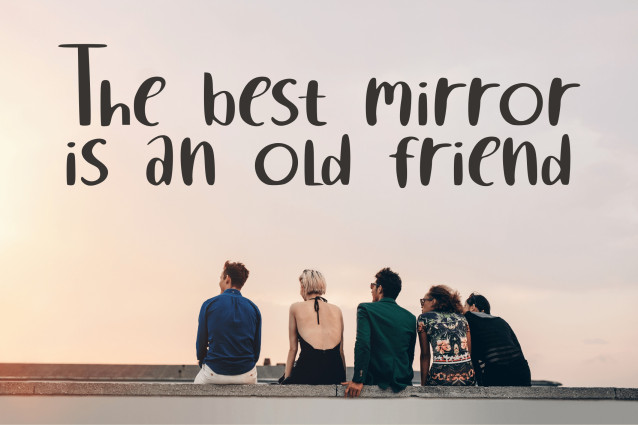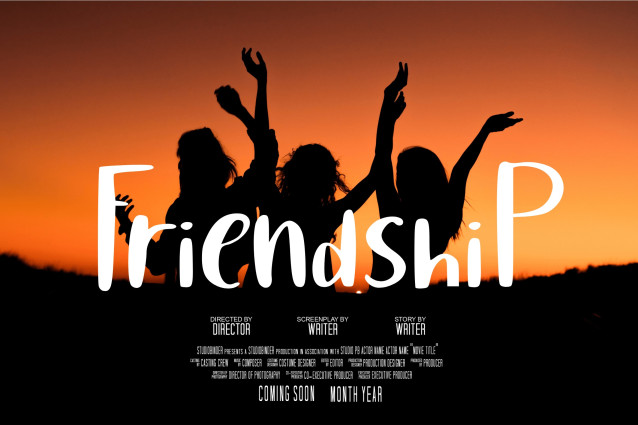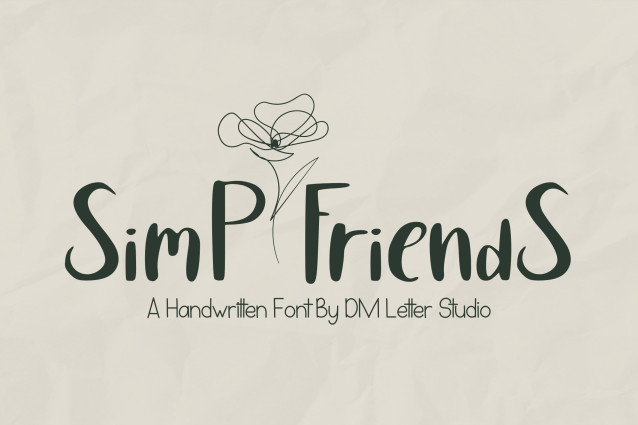
Simp Friends Font
Simp Friends Font is a charming handwritten font designed with simplicity and joy in mind. With its playful strokes and casual lettering style, this font is perfect for friendly projects, children’s designs, greeting cards, social media posts, and more. Simp Friends brings a lighthearted, fun-loving personality to any design, making it feel warm and approachable.